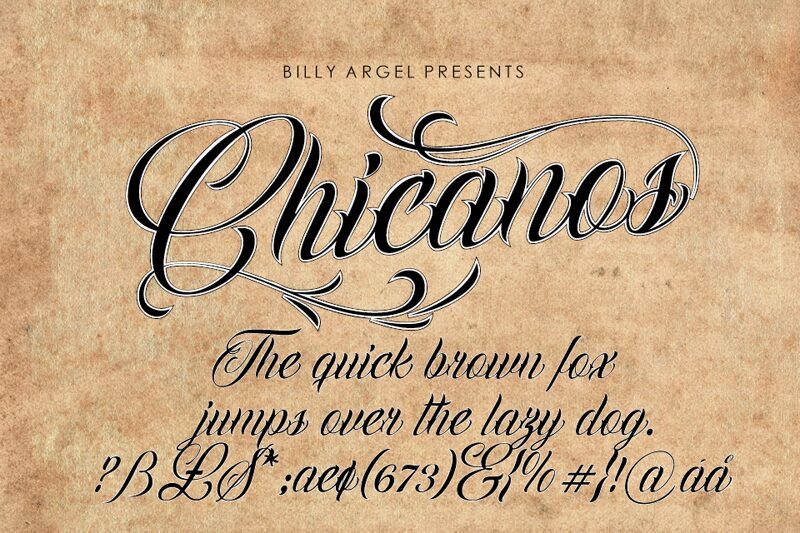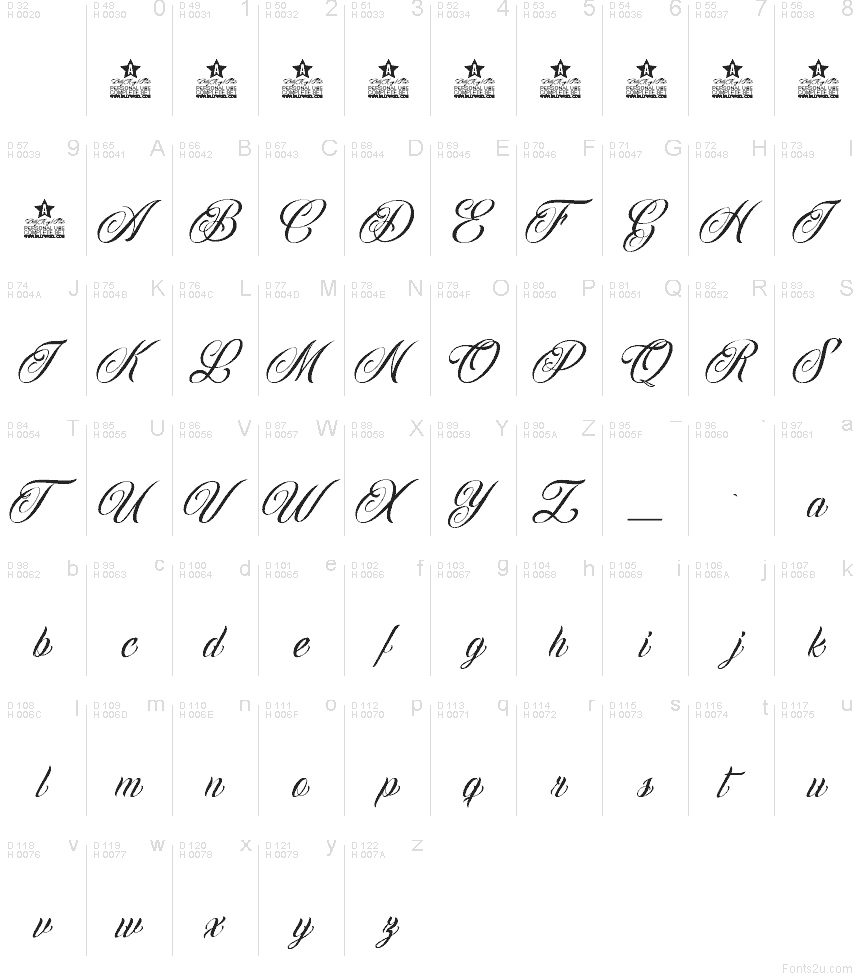
Chicanos, by Billy Argel, is a free copperplate-style calligraphy font with a dramatic, fashion-led sweep. The letters pair hairline loops and long, curling flourishes with heavier strokes, giving the font a polished script rhythm that feels formal without turning stiff.
It fits boutique branding, cosmetic packaging, wedding stationery, restaurant logos, and magazine cover lines where a name or short phrase can take the spotlight. As a free font, it also suits title cards and monograms, because those extended curves and elegant joins give even a few letters the feeling of a signature.
Three layered fonts. PUA-encoded: 8 different swashes, activated by underscore and number.